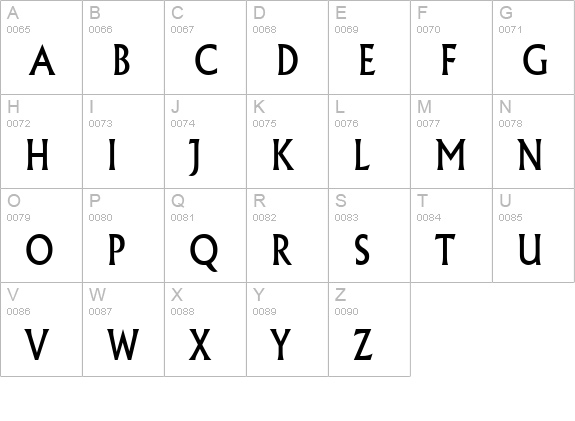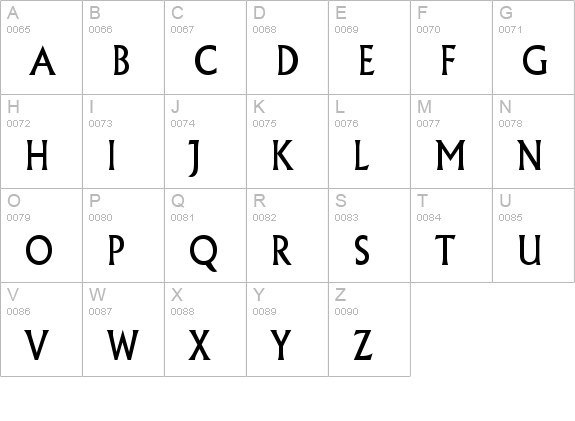
Flair Condensed Normal is the standard, neutral, condensed-width variant in the Flair typeface family \xE2\x80\x94 well suited to general body text, paragraphs, and standard typographic work.
Flair Condensed Normal font is a modern and stylish typeface that exudes elegance and sophistication. Its sleek and streamlined design makes it perfect for a wide range of projects, from branding to editorial design. The condensed style adds a touch of professionalism and class to any text, making it ideal for headlines and titles. This versatile font is available for free download at FontsMarket.com, allowing designers and creatives to easily access and incorporate it into their work. Whether you're working on a logo, website, or print materials, Flair Condensed Normal font will elevate your designs and help you stand out from the crowd. Don't miss out on the opportunity to enhance your projects with this stunning and freely available typeface.